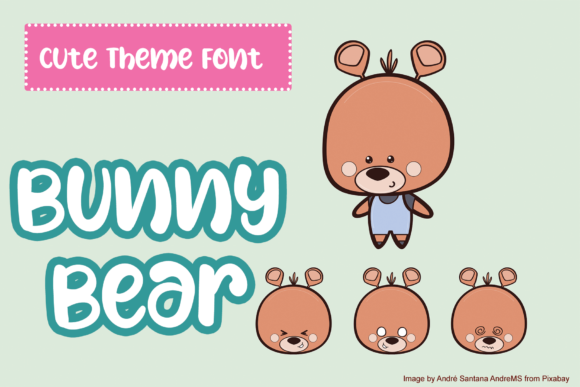
About Bunny Bear Font
Bunny Bear is a cute and fun handwritten font. Get creative with its childlike playfulness, and use it to brighten up any kids and school project!